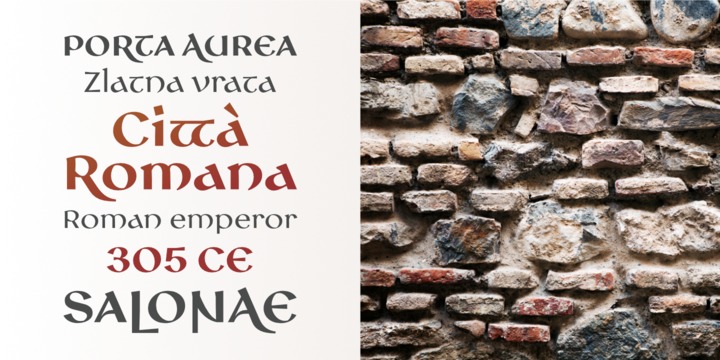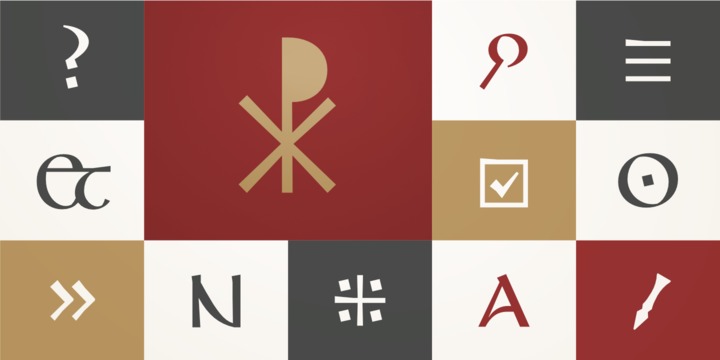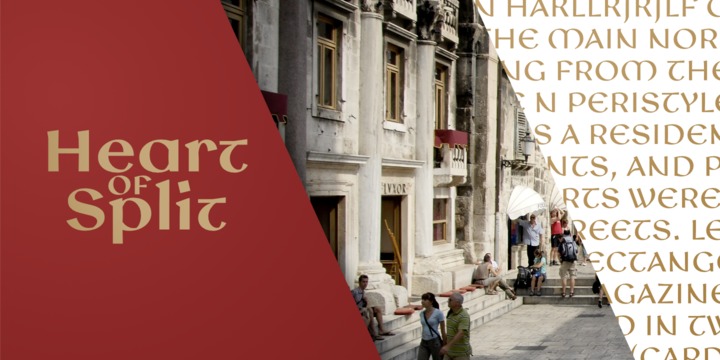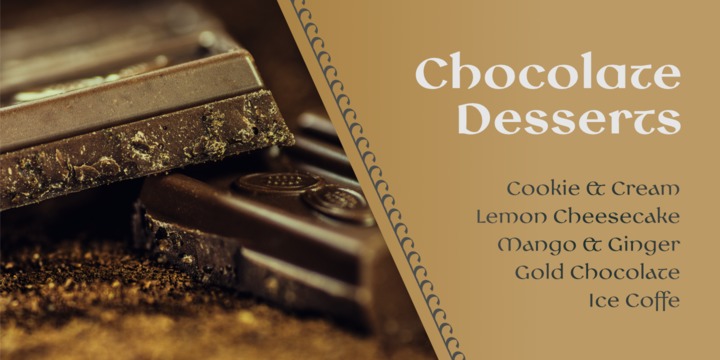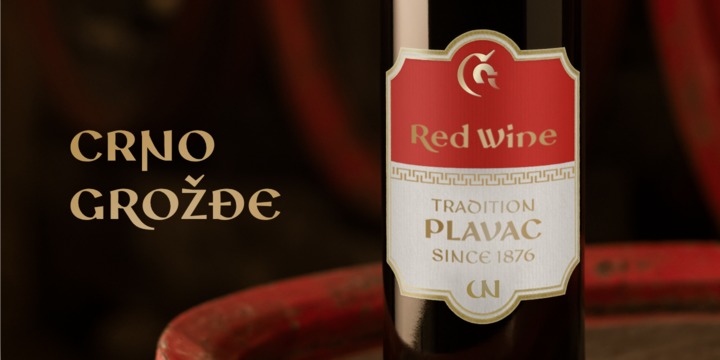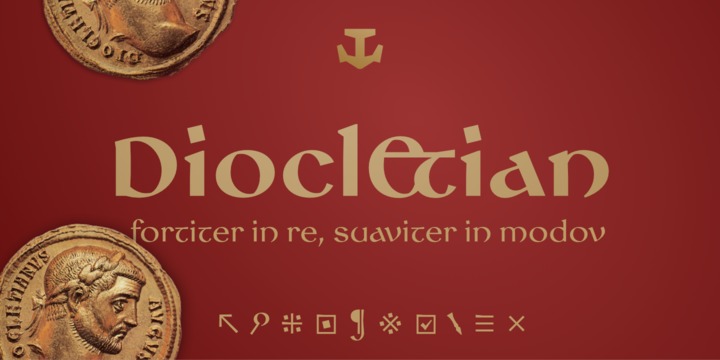
Diocletian Typeface Font
About this font family
Inspired by one of the most imposing heritage of the late Roman empire, this typeface captures the essence and glory of the Diocletian’s palace. Emperor Diocletian built the palace in the turn of the 4th century AD on the picturesque south coast of the Illyrian province, todays Dalmatia region, Croatia. The ancient palace has become the old town of Split, bursting with lively cafes, restaurants, shops, hotels and apartments.
Diocletian typeface is designed to bring the confidence and fortune of the ancient empire to modern communication in a very elegant and gentle manner: Fortiter in re, suaviter in modo — Resolute in execution, gentle in manner.